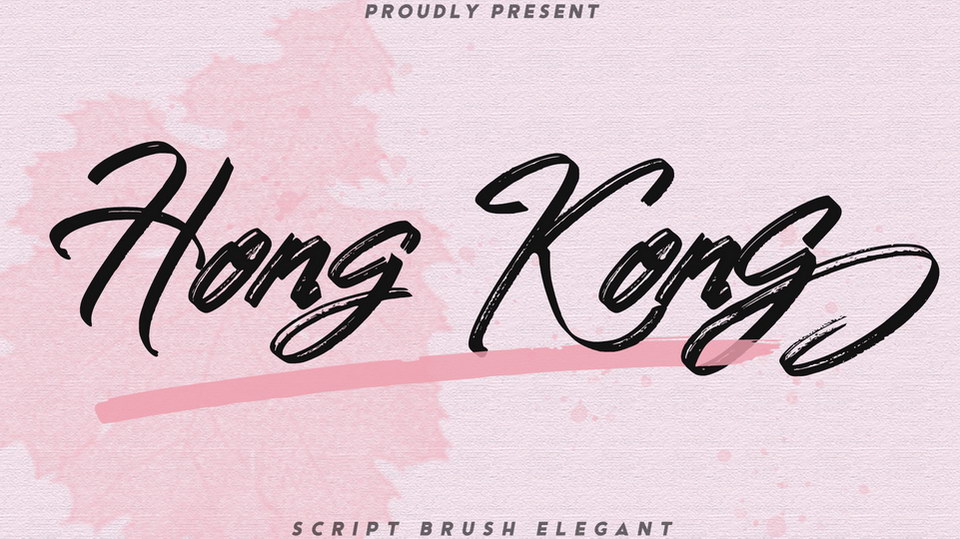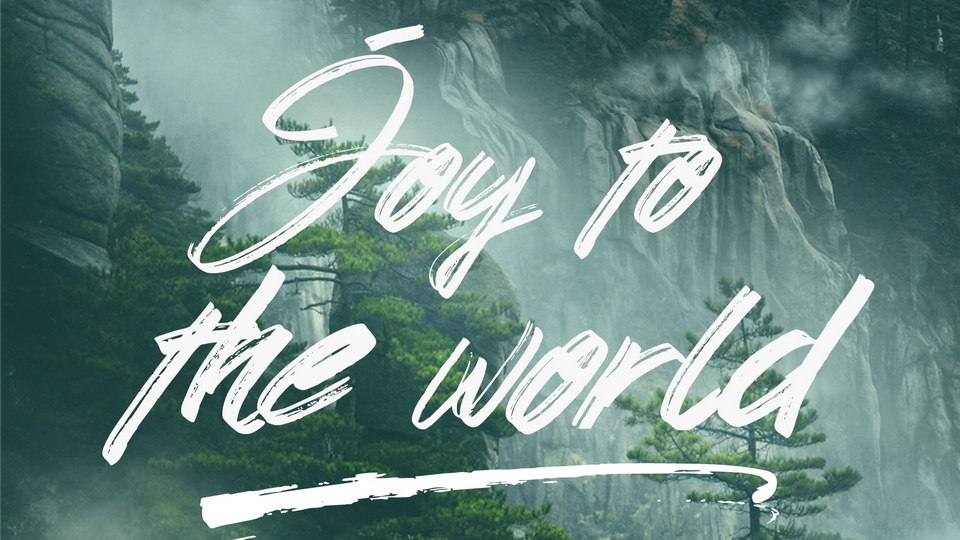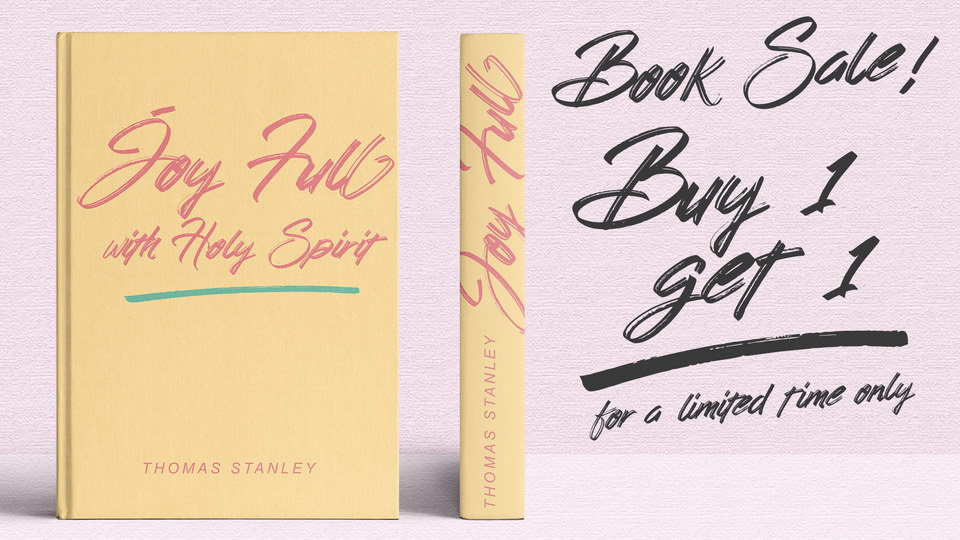
Hong Kong is a energetic brush script with extra attention to quick strokes and sharp details. It contains uppercase, lowercase and ligature.
Hong Kong font is ideal for logos, apparel, book, t-shirts, hoodies, quotes, youtube, quotes, product packaging, website or anything that needs a typographic turbo-boost and you’ll get a unique swash to accompany the font.